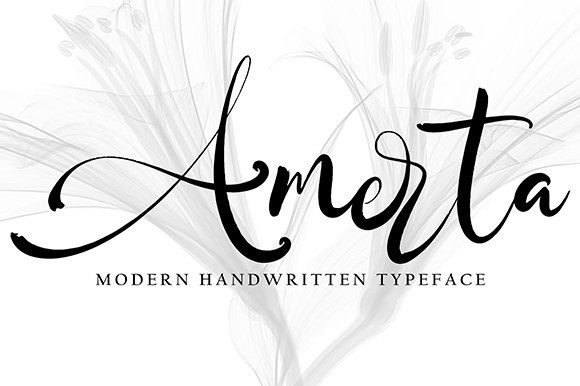
The Amerta Font: A Modern Handwritten Script for Creative Projects
I still remember the frustration of working on a wedding invitation design project, searching for the perfect handwritten font that would make it stand out. The client wanted something elegant, yet playful; something that would reflect their personalities. After hours of browsing through font libraries, I stumbled upon Amerta Font, and it was love at first sight! In this article, I’ll share my experience with Amerta Font, its features, and how to make the most of it in your creative projects.
An Honest Review of Amerta Font
What I Love About Amerta Font ✨
• ✅ Natural and stylish handwritten feel
• ✅ Versatile style suitable for various design projects
• ✅ Perfect for wedding invitations, thank you cards, quotes, and greeting cards
• ✅ Easy to read and understand, even in smaller font sizes
• ⚠️ Limited character set compared to some other fonts
• ⚠️ May not be suitable for body text or lengthy content
The Backstory of Amerta Font
Amerta Font was designed with the intention of creating a modern, handwritten script that would be perfect for creative projects. The designer aimed to craft a font that would look natural, stylish, and elegant, while still being easy to read and understand. The result is a versatile font that can be used for a wide range of design projects, from wedding invitations to greeting cards and more.
Author Pineungtype & Missinklab
Q: What type of projects is Amerta Font best suited for?
A: Amerta Font is perfect for creative projects that require a handwritten feel, such as wedding invitations, thank you cards, quotes, greeting cards, logos, and business cards.
Q: Is Amerta Font easy to read?
A: Yes, Amerta Font is designed to be easy to read and understand, even in smaller font sizes.
Q: Can I use Amerta Font in digital designs?
A: Yes, Amerta Font can be used in digital designs, such as website headers, social media graphics, and more.